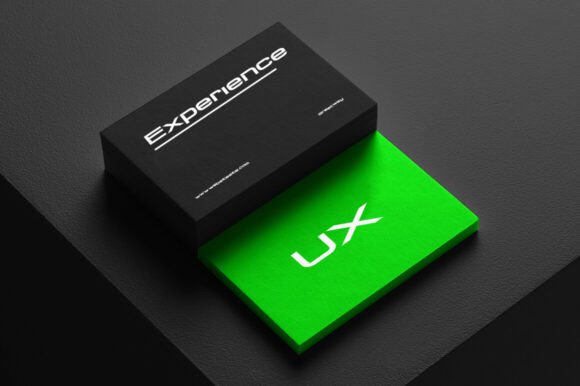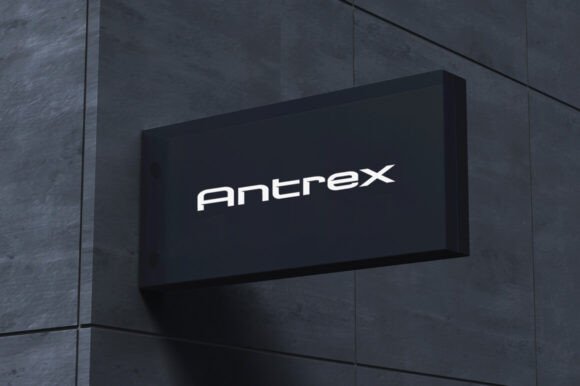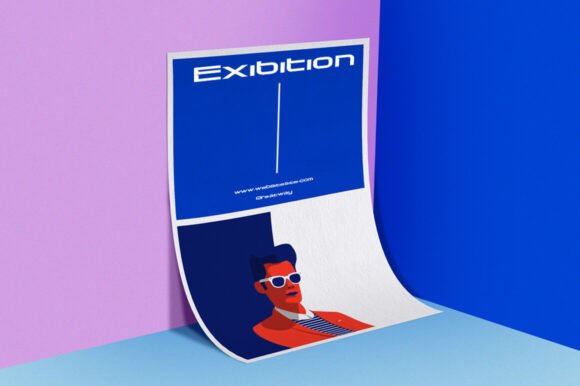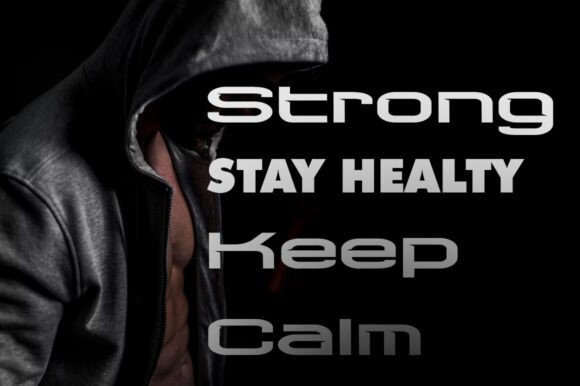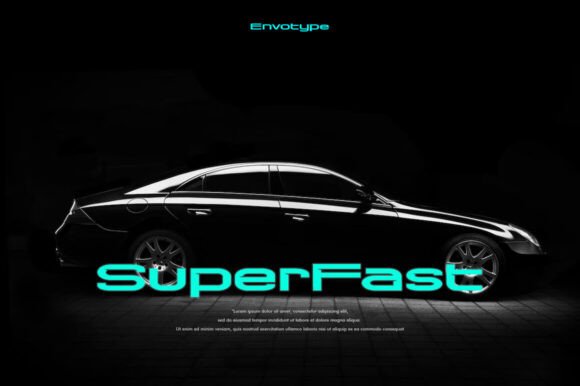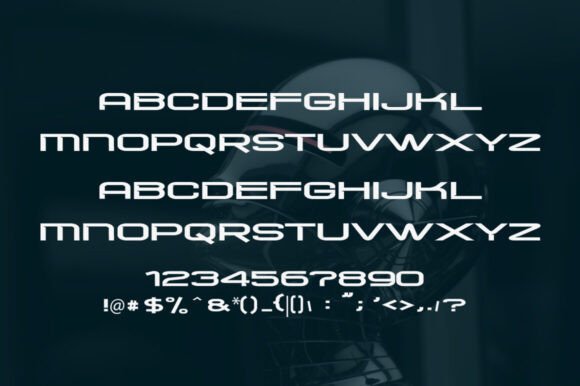
The Amoristic Font: A Futuristic Twist for Your Designs
Have you ever been in the middle of a design project, and suddenly, you’re stuck on finding the perfect font? I recall a recent experience where I was working on a futuristic-themed branding project, and my usual go-to fonts just weren’t cutting it. That’s when I stumbled upon the Amoristic font, and it completely transformed my design. In this article, we’ll dive into the world of Amoristic, exploring its unique features, and how to make the most of it in your designs.
A Personal Encounter with Amoristic
As a designer, I’m always on the lookout for fonts that can help my clients stand out. When I first laid eyes on Amoristic, I was immediately drawn to its sleek, sans-based design and the quirky uniqueness of its lowercase letters. It’s a font that screams modernity and futurism, making it perfect for projects that require a bit of an edge.
An Honest Review of Amoristic
So, what makes Amoristic so special? Let’s break it down:
- ✨ Unique Lowercase Letters: The lowercase letters in Amoristic are unlike any other font I’ve seen. They have a futuristic feel that can instantly elevate your design.
- ✅ Versatility: Whether you’re working on a logo, a brochure, or a website, Amoristic can adapt to any design need.
- ✅ Modern Aesthetic: The overall look of Amoristic is sleek and modern, making it perfect for projects that require a contemporary feel.
However, no font is perfect. Here are a few quirks to consider:
- 🤔 Legibility at Small Sizes: While Amoristic looks stunning at larger sizes, it can become a bit tricky to read at smaller sizes. It’s best used for headlines or larger text.
- ⚠️ Limited Serif Options: As a sans-based font, Amoristic doesn’t offer serif options. This might limit its use in projects that require a mix of serif and sans fonts.
The Story Behind Amoristic: Designer Inspiration
While the exact origins of Amoristic are unclear, it’s easy to imagine that its designer was inspired by the futuristic and technological advancements of our modern world. The font’s sleek lines and unique lowercase letters evoke a sense of innovation and forward-thinking.
| Font Name | Amoristic Font |
| Author | Templatiostudio |
| What makes Amoristic unique? | Its unique lowercase letters and sleek, sans-based design make it stand out from other fonts. |
| Is Amoristic suitable for body text? | While Amoristic is stunning for headlines, it can be tricky to read at smaller sizes. It’s best used for larger text. |